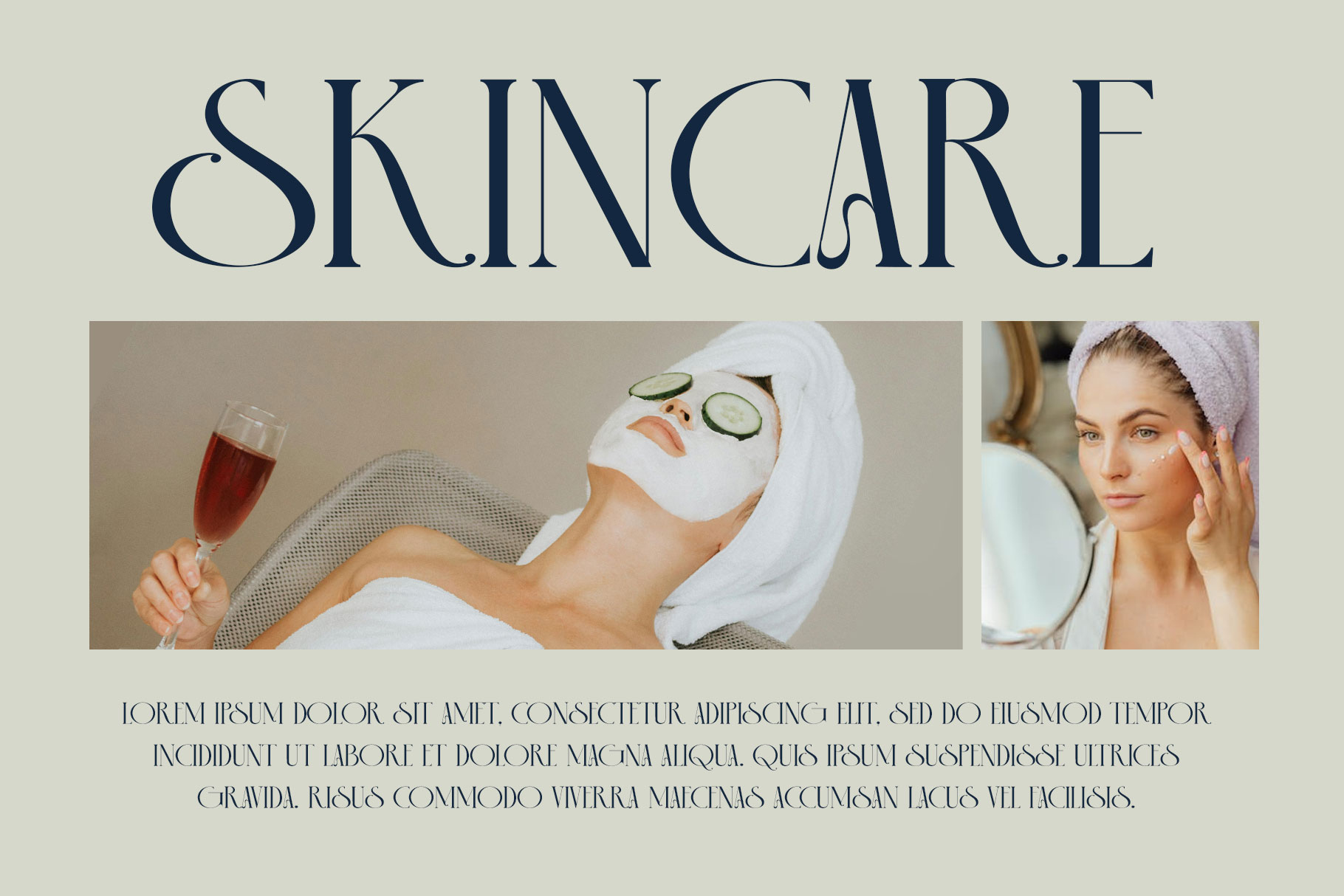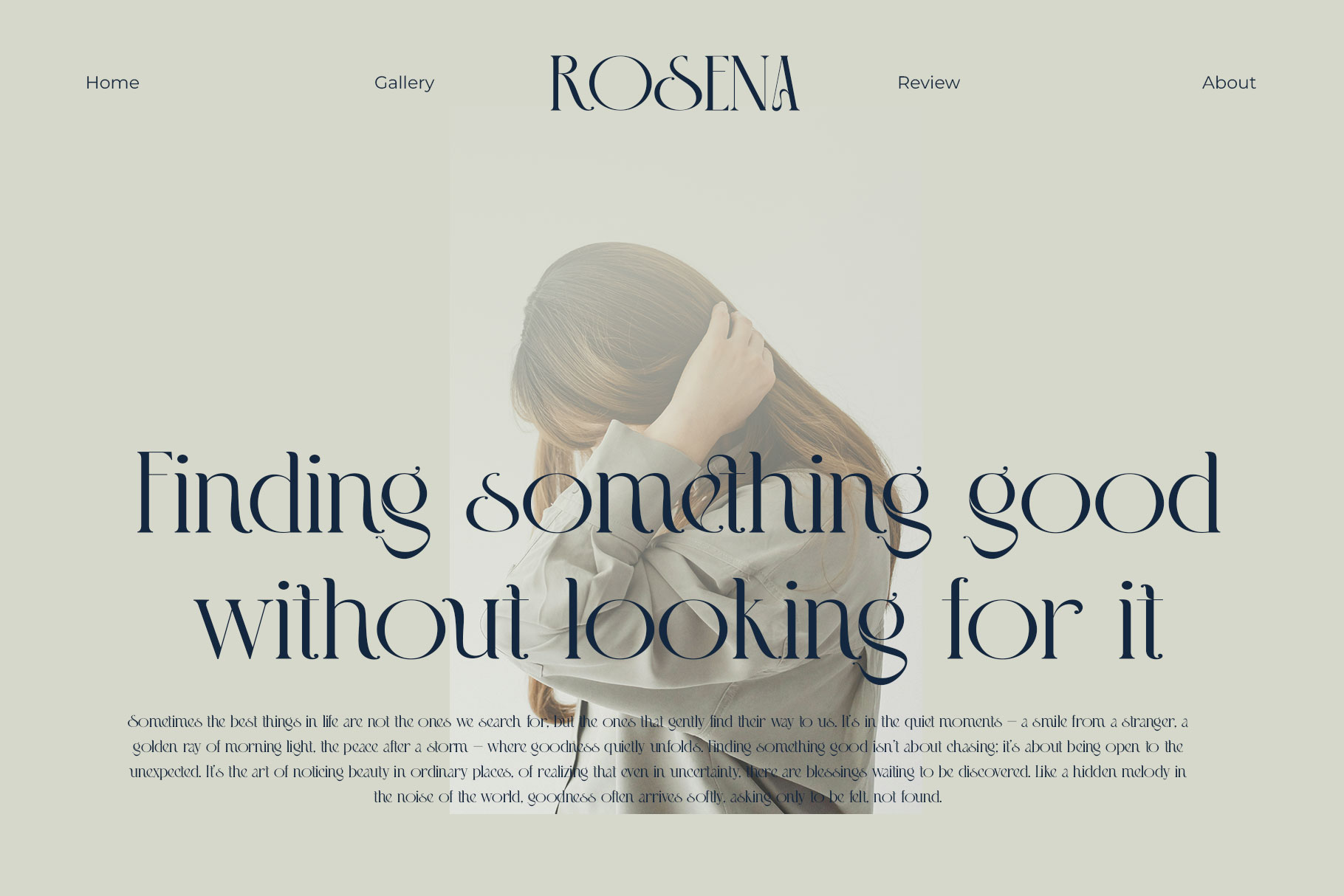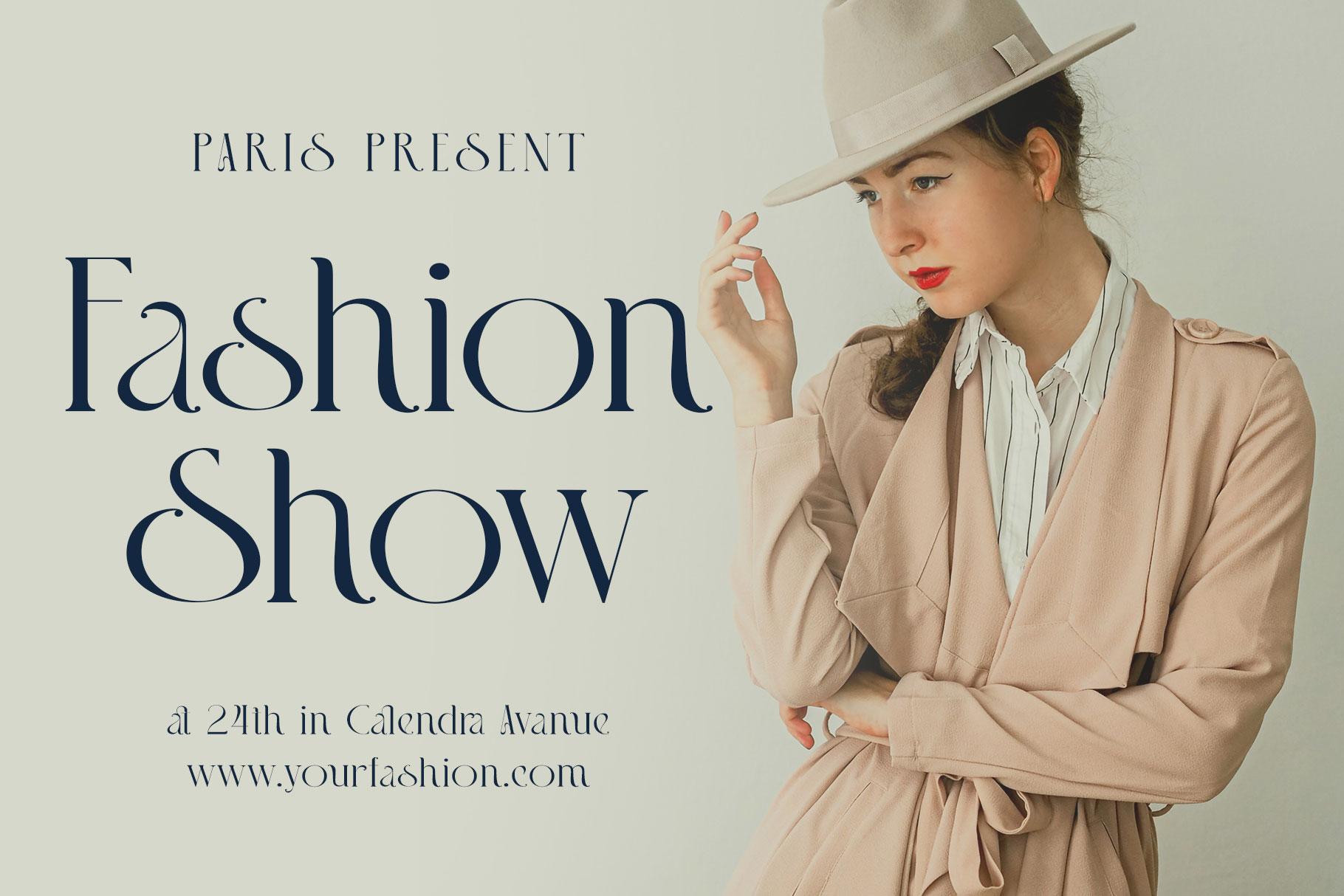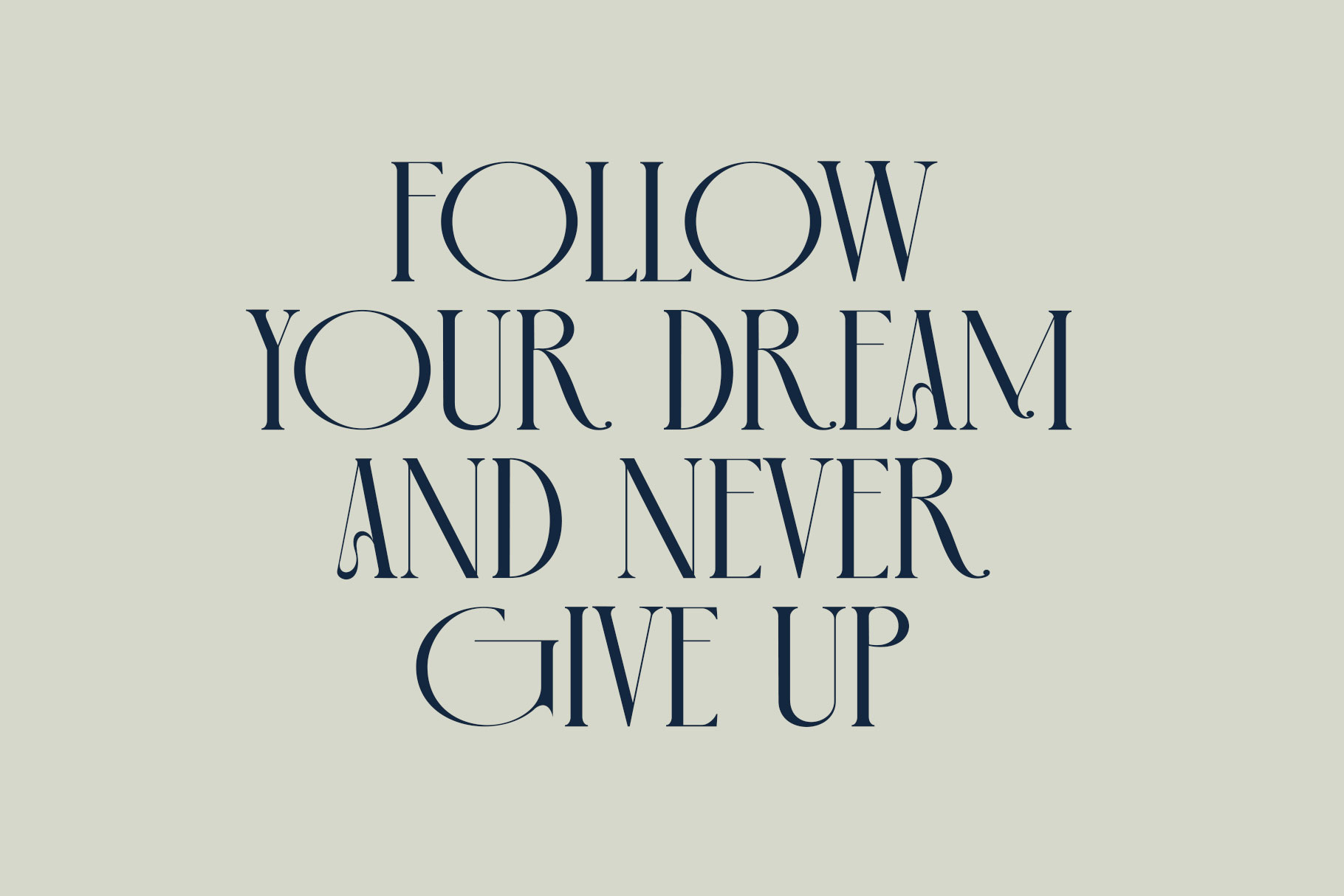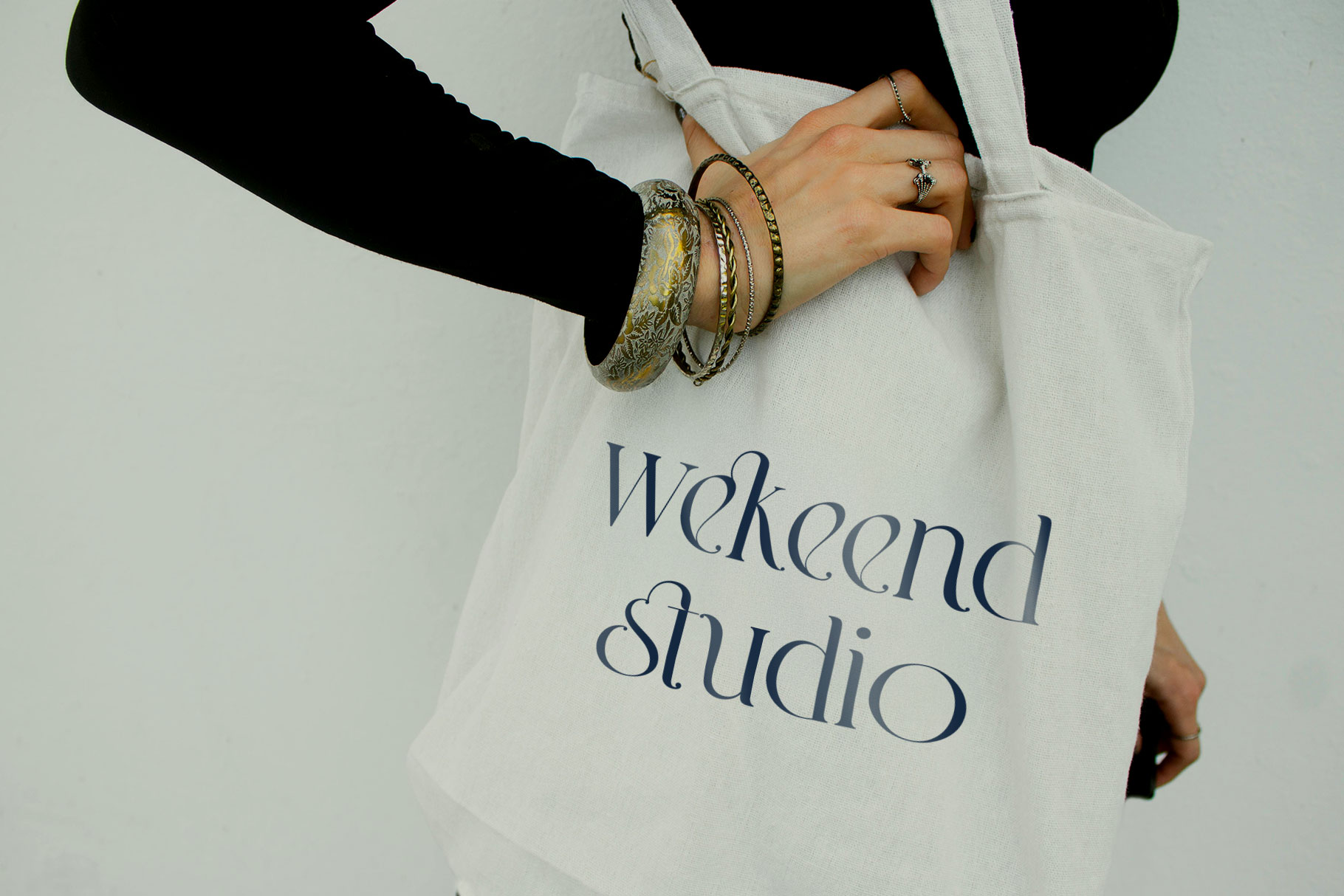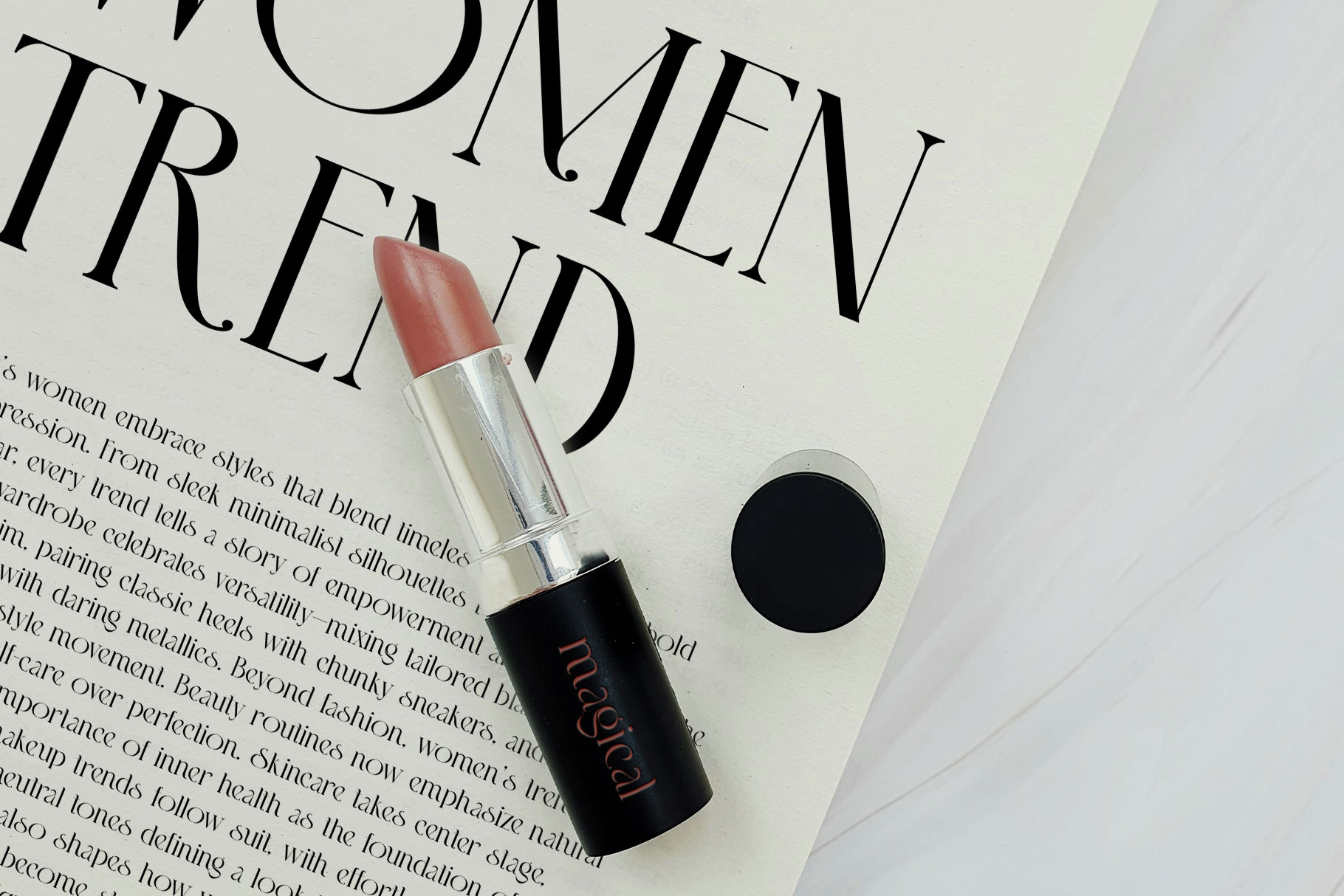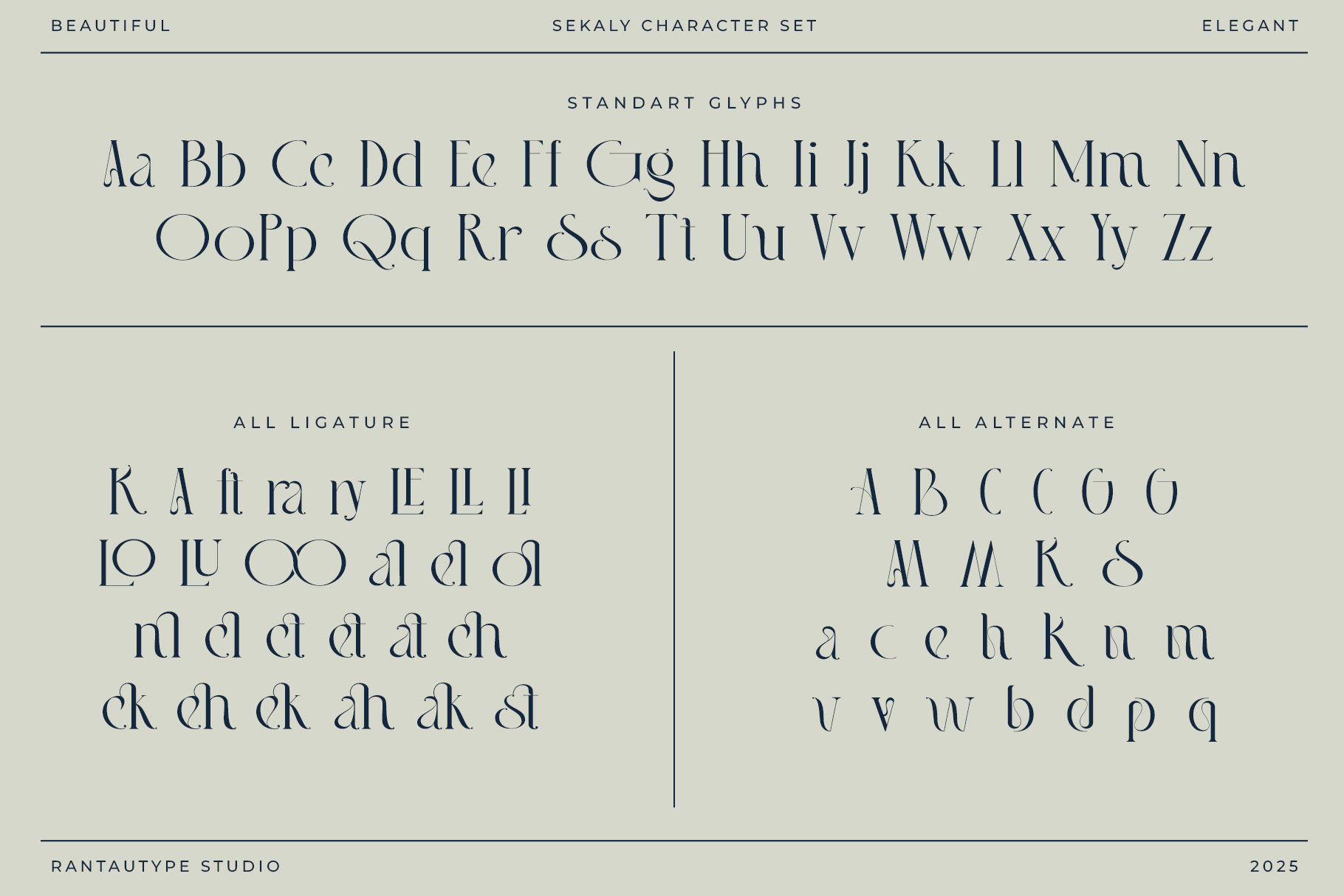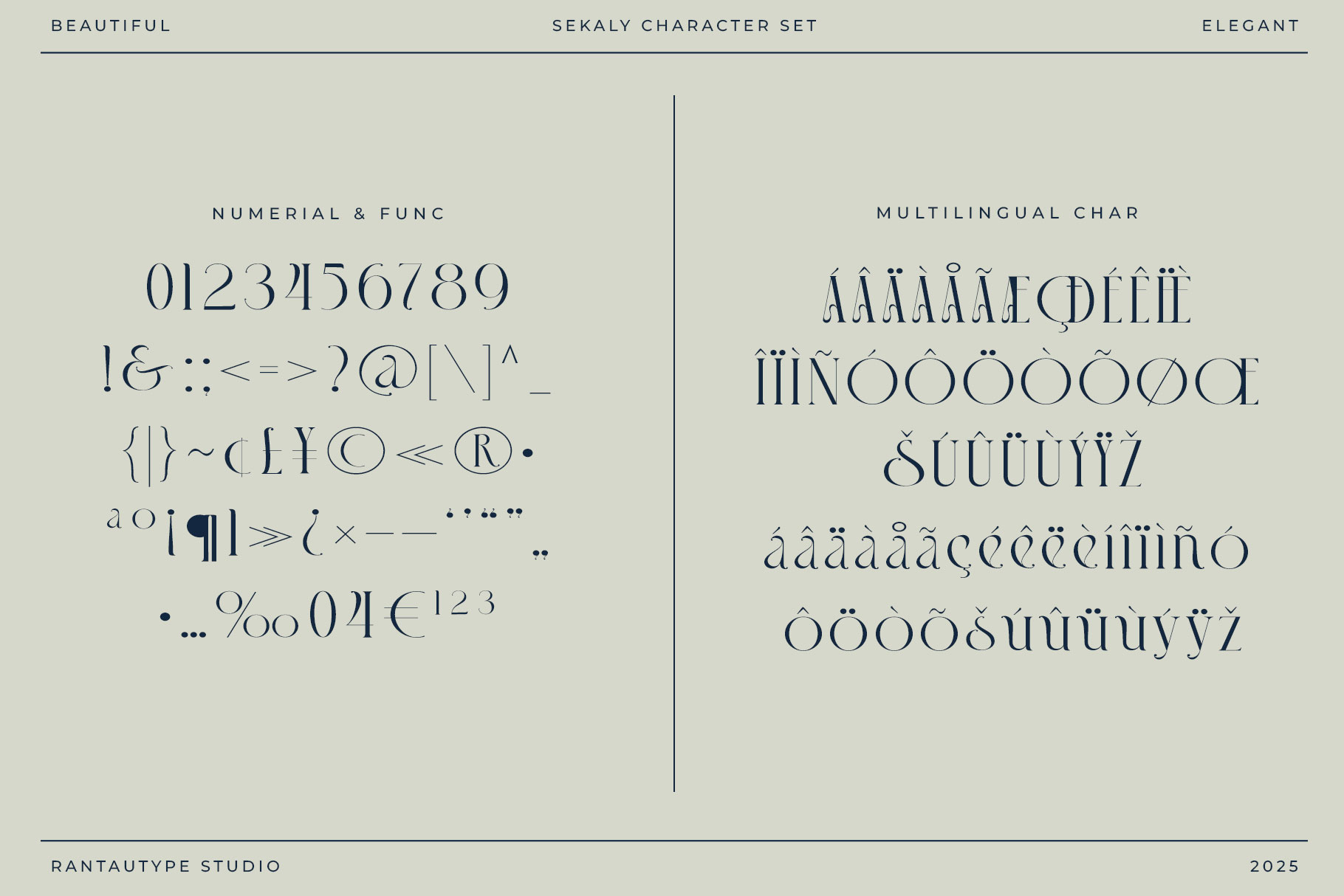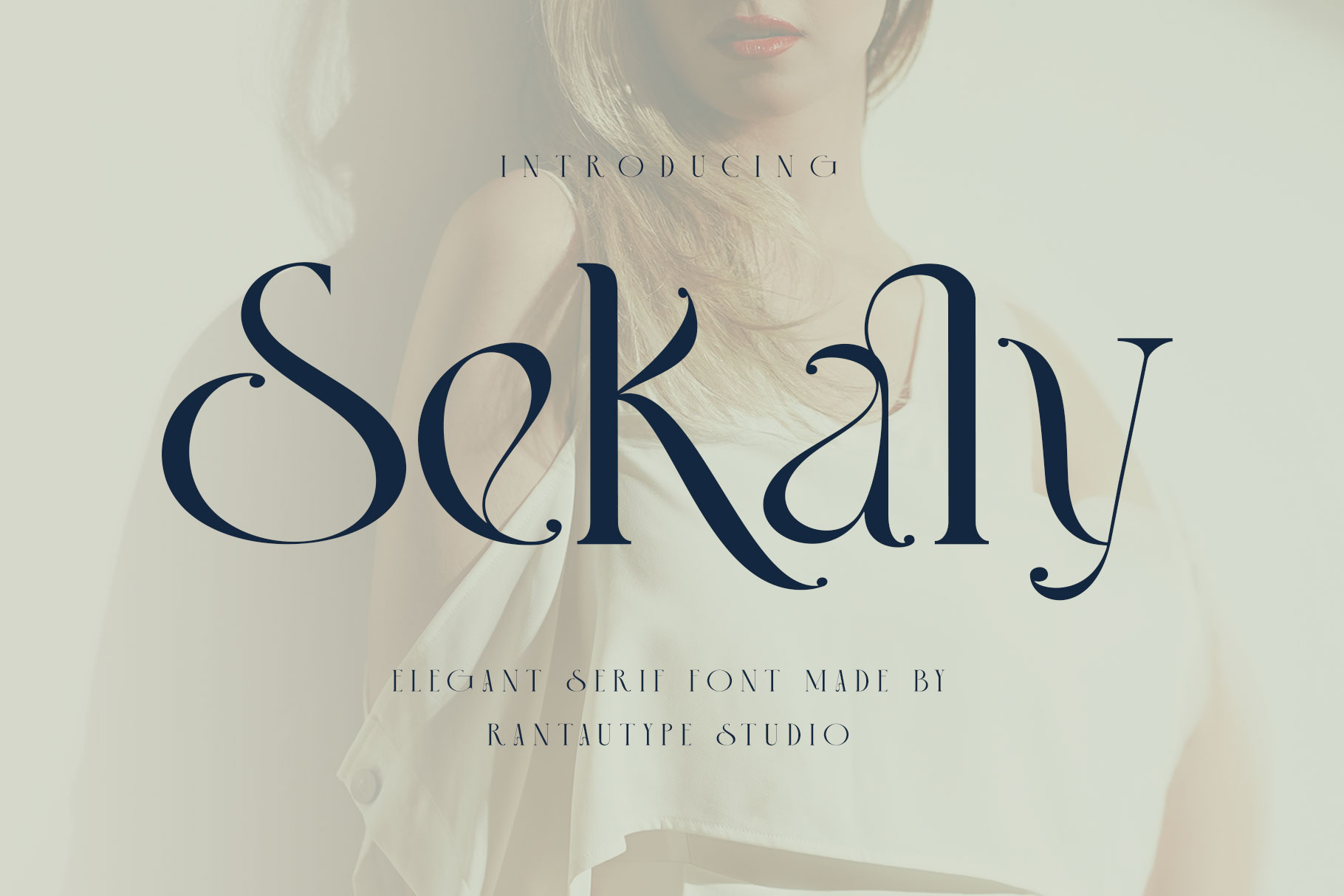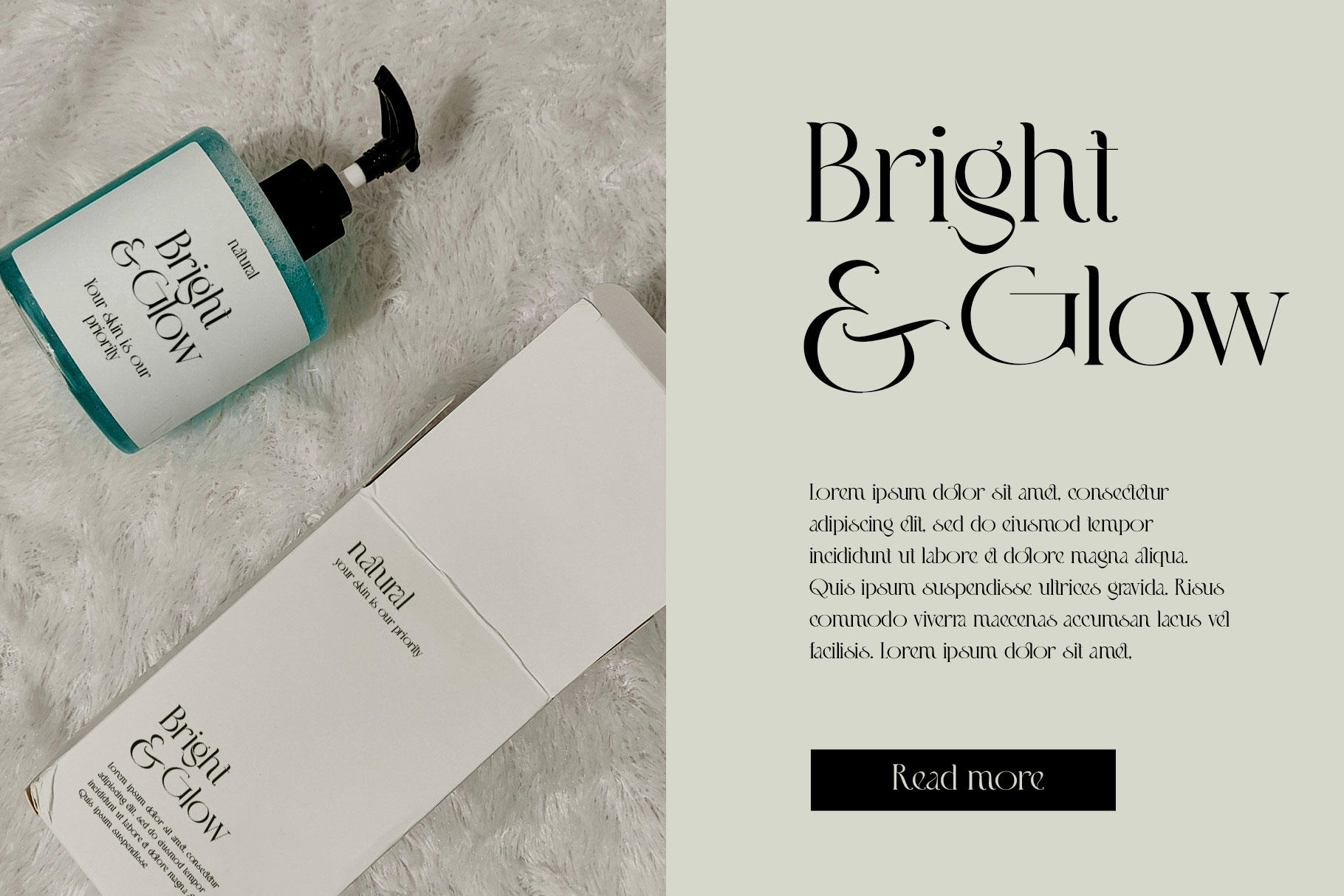
Sekaly Elegant Serif Font
Sekaly is beautiful serif font embrace grace and feminity. Sekaly is a perfectly choice for any creative endeavor, creating, modern, lifestyle design such as logotype, title, cover, branding, invitations, wedding designs, display and magazine, social media posts, advertisements, printed quotes, product packaging, corporate brand, product designs, labels, photography, watermarks, special events and any other project with elegant touch.